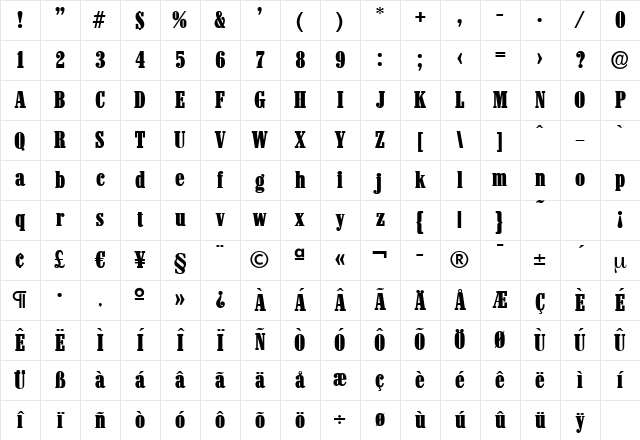
RobertBecker-Heavy Regular
Design Context for RobertBecker-Heavy
RobertBecker-Heavy is a composed and adaptable typeface that performs quietly and consistently across a wide range of design contexts.